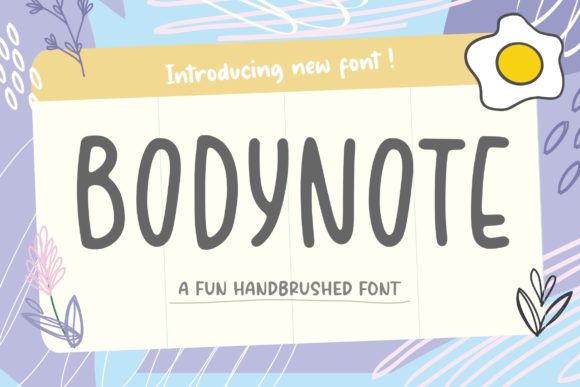
Journey into the realm of taste and visual delight with Bodynote Font, the ultimate culinary companion for your brand's visual identity. This playful and vibrant display font, crafted by the visionary Balpirick, is a symphony of flavors that will tantalize the eyes and ignite the taste buds.
Bodynote Font is not just a font; it's an invitation to explore a world of gastronomic wonders. Its whimsical curves and cheerful characters evoke the joy of a perfectly executed dish, the warmth of a family gathering around a bountiful table, and the sheer indulgence of a culinary masterpiece.
Picture your brand adorned with the charm of Bodynote Font. Your logo, menus, packaging, and website will radiate a personality that is both inviting and unforgettable. This font is the secret ingredient that will elevate your brand to culinary stardom, making it the talk of the town and the object of desire for food lovers everywhere.
With Bodynote Font, you'll captivate your audience with every visual encounter. Your branding will radiate warmth, passion, and an irresistible allure that draws customers in like moths to a flame. They'll feel the sizzle of anticipation, the tang of excitement, and the sweetness of satisfaction with every interaction with your brand.
So, embark on this culinary adventure with Bodynote Font as your trusty guide. Let its playful spirit infuse your brand with a touch of magic, transforming it into a beacon of culinary excellence that will leave a lasting impression on your customers' palates and minds.